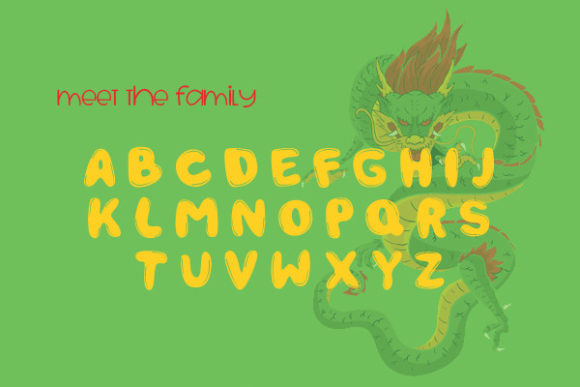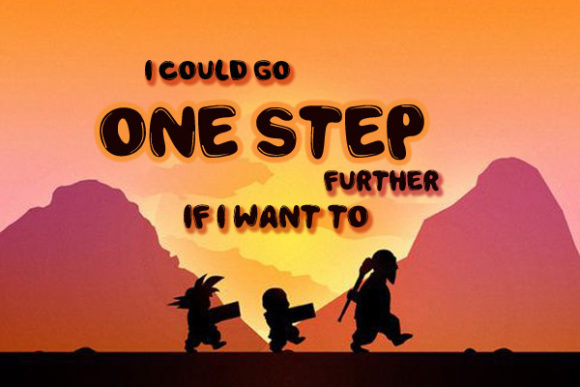
Dragon Ball Font: Unleash Your Creativity with this Fun and Thick Lettered Display Font
Are you a designer, crafter, or simply a fan of the iconic Dragon Ball series? Look no further! The Dragon Ball Font is here to take your creative projects to the next level. This fun and thick lettered display font is perfect for delivering any message with confidence, authenticity, and charm. In this article, we’ll dive into the world of Dragon Ball Font, exploring its features, uses, and benefits.
What is Dragon Ball Font?
Dragon Ball Font is a unique and eye-catching typeface inspired by the popular manga and anime series, Dragon Ball. This font is designed to capture the essence of the franchise’s bold and playful style, making it an excellent choice for a wide range of creative projects. With its thick letters and fun design, Dragon Ball Font is sure to add a jolly touch to any design.
Key Features of Dragon Ball Font
- Fun and Thick Lettered Design: The Dragon Ball Font boasts a bold and playful design, perfect for making a statement.
- Display Font: This font is specifically designed for display purposes, making it ideal for headlines, titles, and short phrases.
- Confidence and Authenticity: The Dragon Ball Font exudes confidence and authenticity, ensuring your message is delivered with impact.
- Versatility: Use it for cartoons, magazine covers, games, or any project that requires a touch of fun and personality.
Uses of Dragon Ball Font
The Dragon Ball Font is an incredibly versatile typeface, suitable for a wide range of creative projects. Here are some ideas to get you started:
- Cartoons and Animations: Add a playful touch to your cartoons and animations with the Dragon Ball Font.
- Magazine Covers: Create eye-catching magazine covers that grab attention with this bold font.
- Games: Use the Dragon Ball Font to create engaging game titles, menus, and UI elements.
- Posters and Flyers: Make your posters and flyers stand out with this fun and thick lettered font.
- Social Media Graphics: Add a touch of personality to your social media graphics, such as Facebook posts, Instagram stories, and Twitter headers.
Benefits of Using Dragon Ball Font
So, why choose the Dragon Ball Font for your creative projects? Here are some benefits to consider:
- Unique and Eye-Catching: The Dragon Ball Font is sure to grab attention and make your design stand out.
- Easy to Read: Despite its bold design, the Dragon Ball Font is easy to read, even at smaller sizes.
- Customizable: Experiment with different colors, sizes, and styles to make the font your own.
- Inspired by a Classic Franchise: Tap into the nostalgia and excitement of the Dragon Ball series with this inspired font.
Tips for Using Dragon Ball Font
To get the most out of the Dragon Ball Font, here are some tips to keep in mind:
- Use it Sparingly: While the Dragon Ball Font is bold and eye-catching, it’s best used sparingly to avoid overwhelming the design.
- Pair with Other Fonts: Experiment with pairing the Dragon Ball Font with other fonts to create visual interest and hierarchy.
- Play with Colors: Take advantage of the font’s bold design by experimenting with bright and bold colors.
In conclusion, the Dragon Ball Font is an exciting and versatile typeface that’s perfect for designers, crafters, and fans of the Dragon Ball series. With its fun and thick lettered design, this font is sure to add a jolly touch to any creative project. So, why not give it a try and unleash your creativity with the Dragon Ball Font?